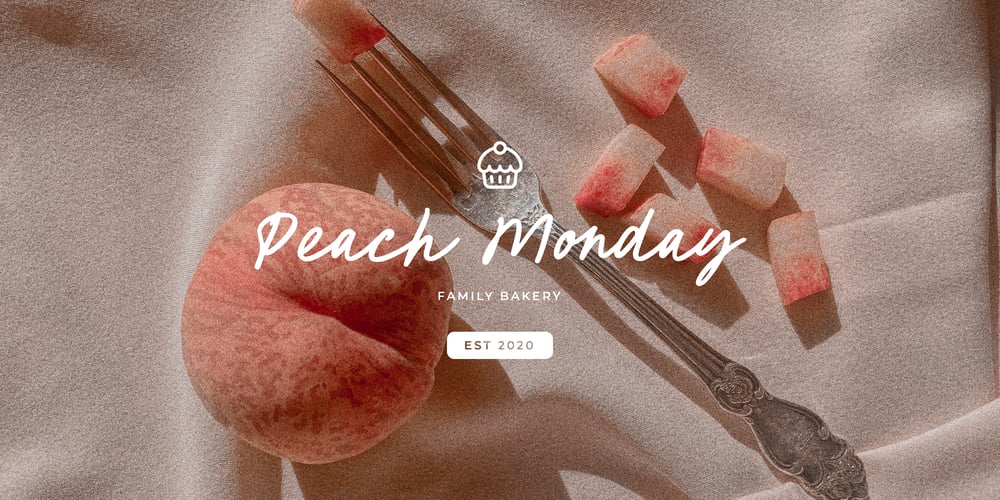
Des Montilles Font Family was designed by Dmitrii Chirkov and published by Supfonts. Des Montilles contains 1 styles and family package options. Des Montilles is a casual handwritten font.Perfect for greeting cards, wedding stationery, photographer watermarks logos, modern websites, apparel design and more.Des Montilles features handwritten ligatures, beginning and end swashes for lowercase letters and heart connections